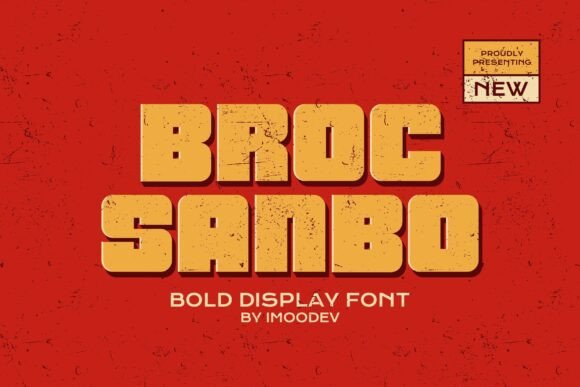
The Retro Revival: Unleashing the Power of Broc Sanbo Font
I’ll never forget the time I was working on a project to create a vintage-style travel poster for a client’s new outdoor gear brand. I had the perfect concept, the ideal color palette, and a clear vision of what I wanted to achieve. However, I was struggling to find the right font to bring it all together. That’s when I stumbled upon Broc Sanbo, a bold retro display font that instantly caught my attention. With its thick, block-like letters and tight curves, it was as if the font was made specifically for my project.
As I started experimenting with Broc Sanbo, I fell in love with its unique features. Here are a few things that make this font stand out:
- ✨ Extremely bold and eye-catching: Broc Sanbo is perfect for making a statement. Its thick, block-like letters demand attention and are sure to stop viewers in their tracks.
- ✅ Retro action movie poster feel: The font’s square proportions and tight curves evoke a sense of nostalgia, reminiscent of classic action movie posters from the 80s and 90s.
- ✅ Modern streetwear twist: Despite its retro feel, Broc Sanbo has a distinctly modern edge that makes it perfect for trendy urban designs.
Of course, no font is perfect, and Broc Sanbo has a few quirks to keep in mind:
- 🤔 Limited use cases: Due to its bold and attention-grabbing nature, Broc Sanbo may not be the best choice for body text or smaller font sizes.
- ⚠️ Glyph limitations: Some users have reported that the font’s glyph set is not as extensive as they would like, which may limit its use in certain design projects.
The Designer Inspiration Behind Broc Sanbo
Broc Sanbo was designed with the goal of creating a bold, attention-grabbing font that would evoke the spirit of retro action movie posters and modern streetwear. The font’s designer drew inspiration from classic typography and modern design trends to create a unique and versatile font.
| What is Broc Sanbo font best used for? | Broc Sanbo is perfect for designs that require a bold, attention-grabbing font, such as travel posters, sports logos, vintage western titles, trendy urban flyers, BBQ packaging, sports headlines, outdoor signage, bold logos, stickers, and apparel. |